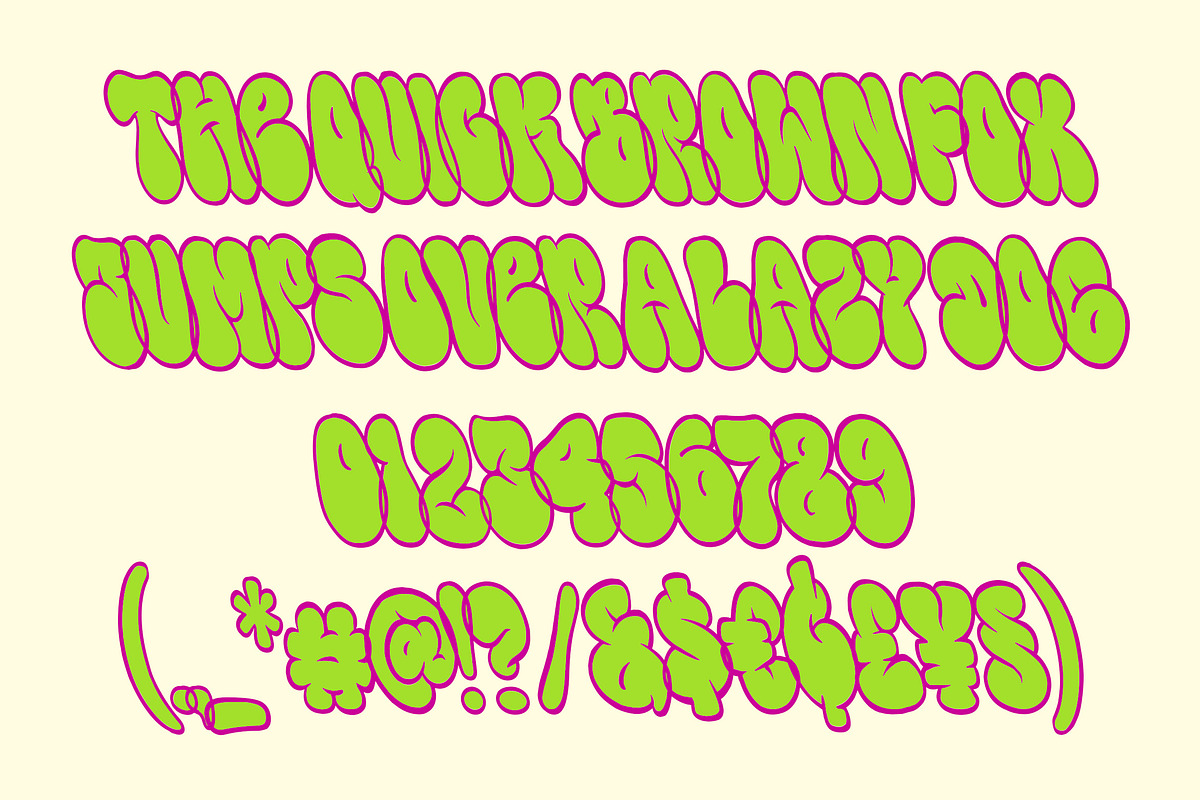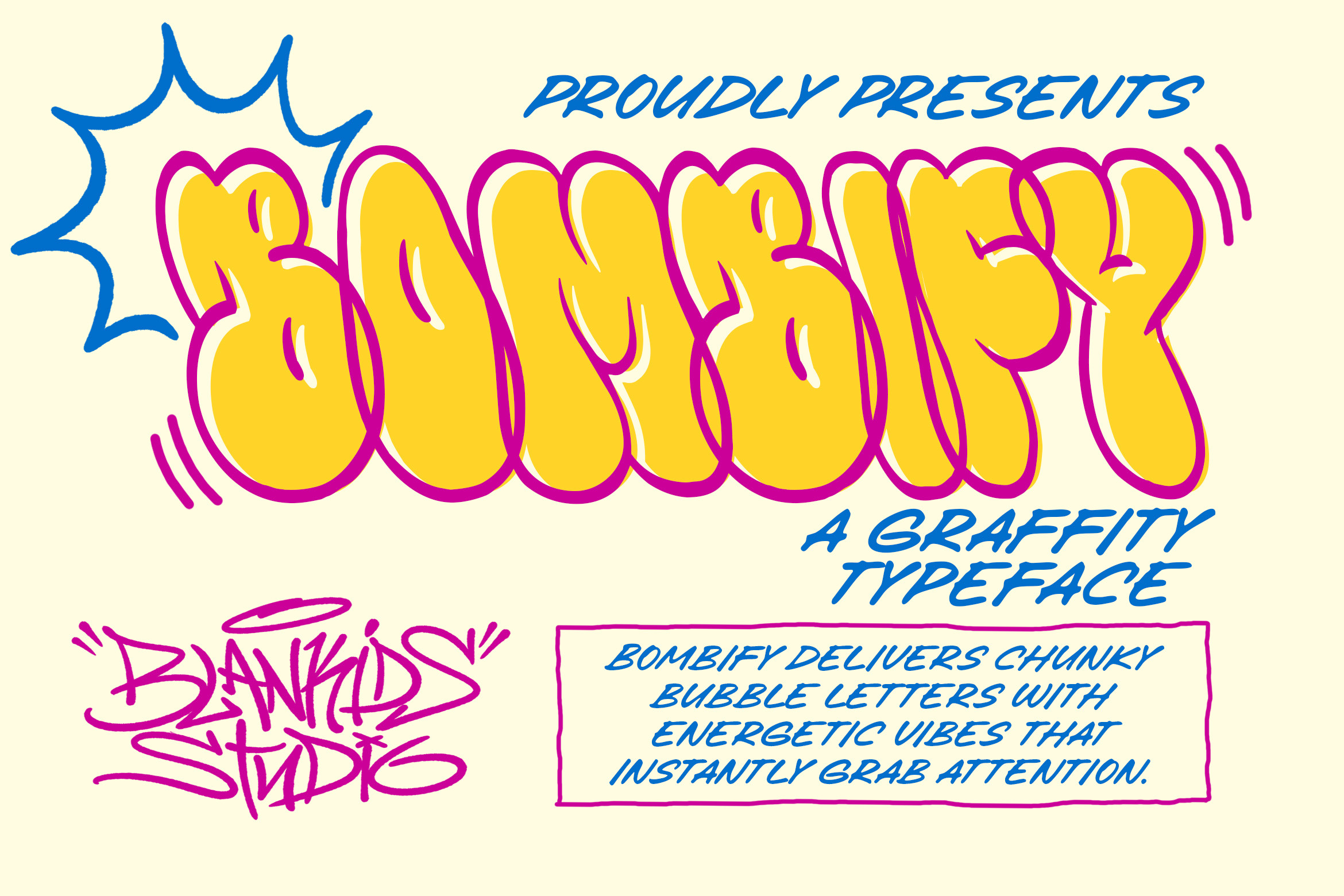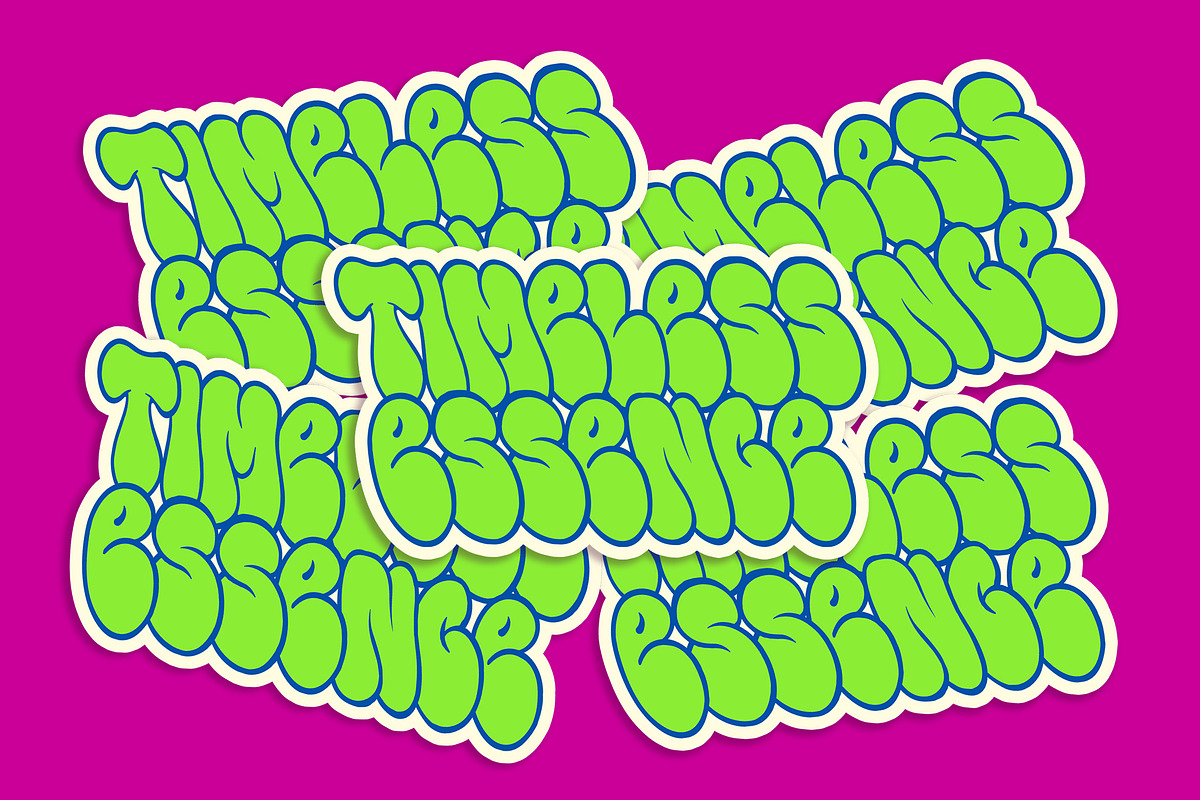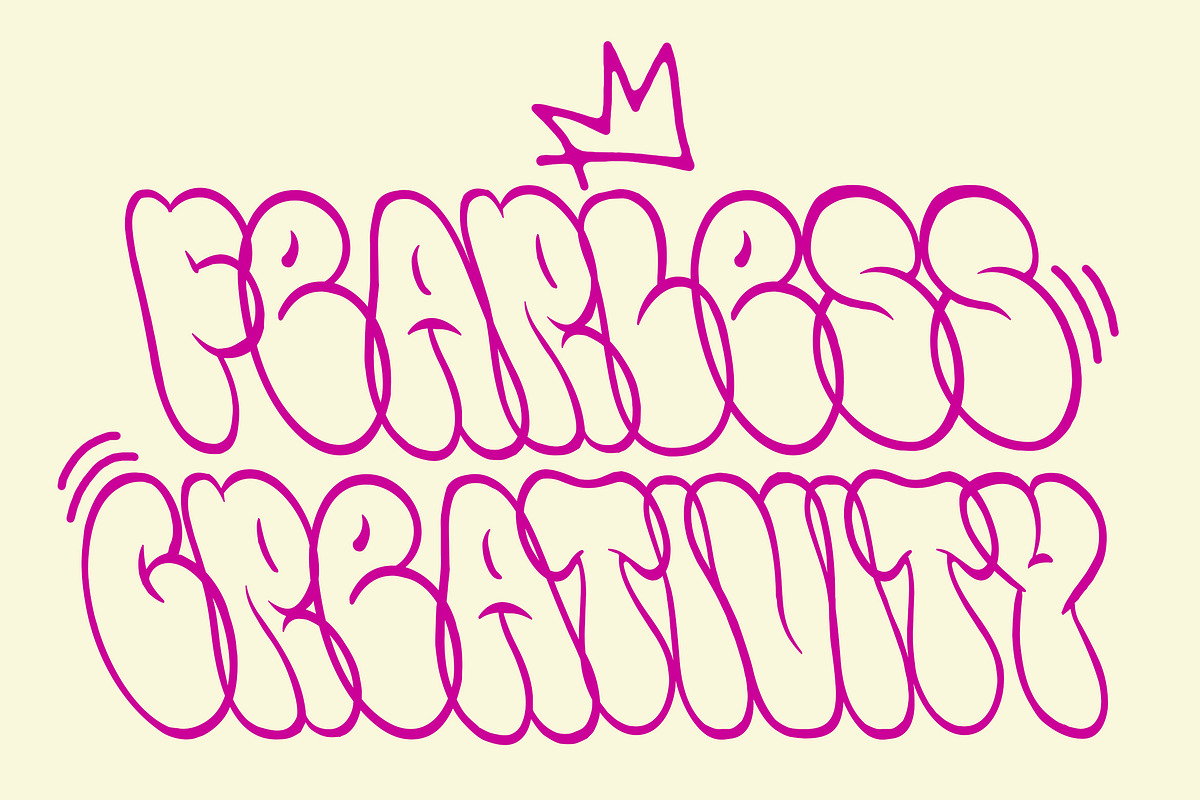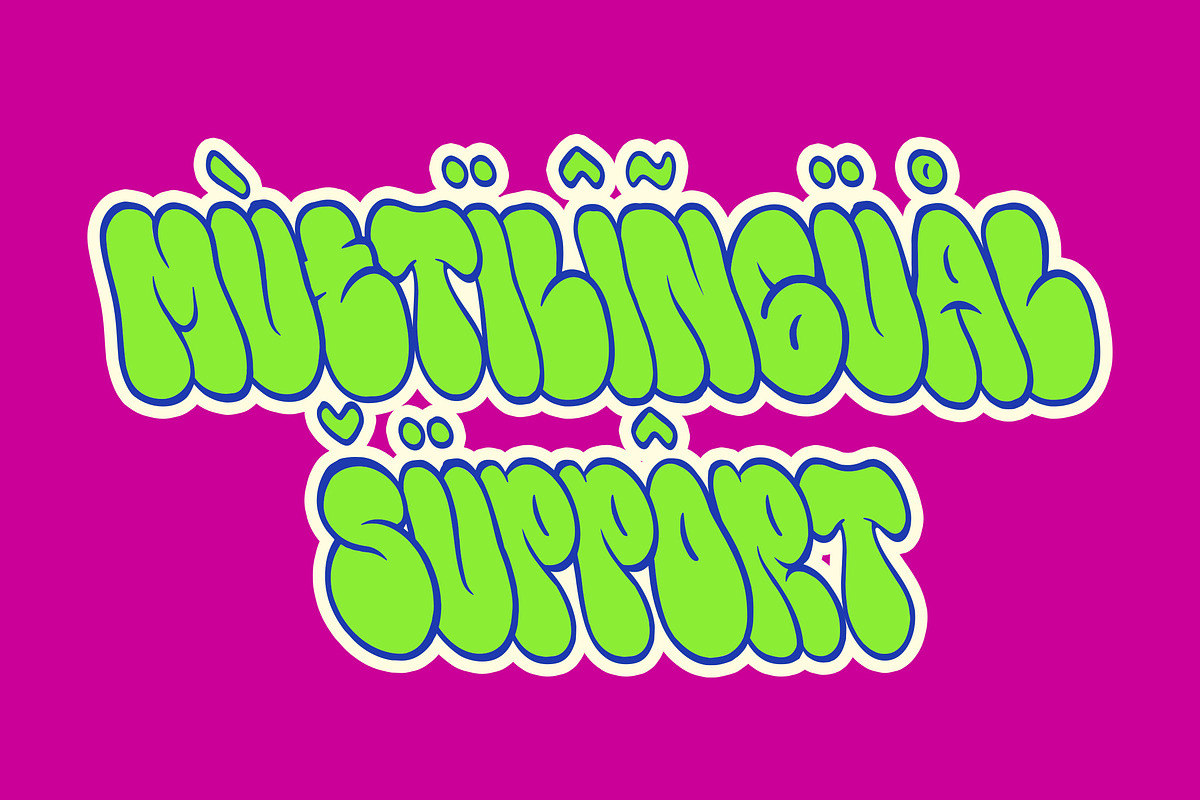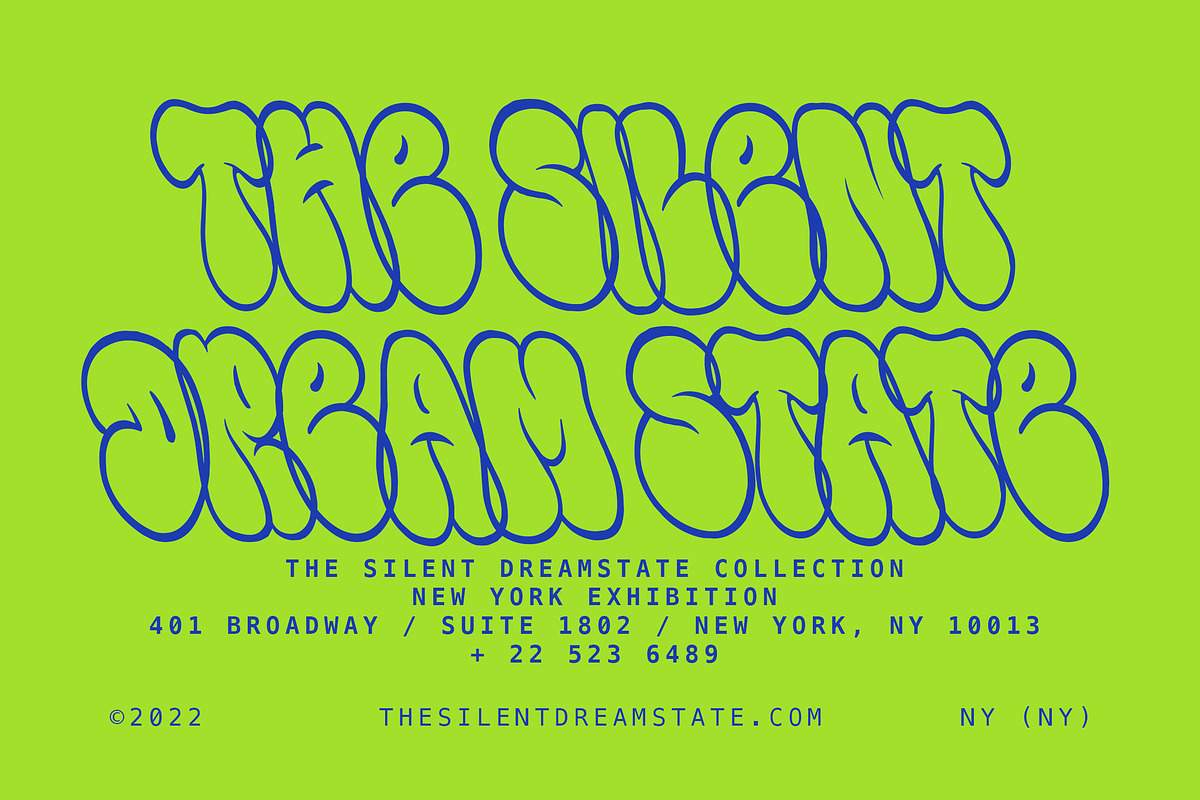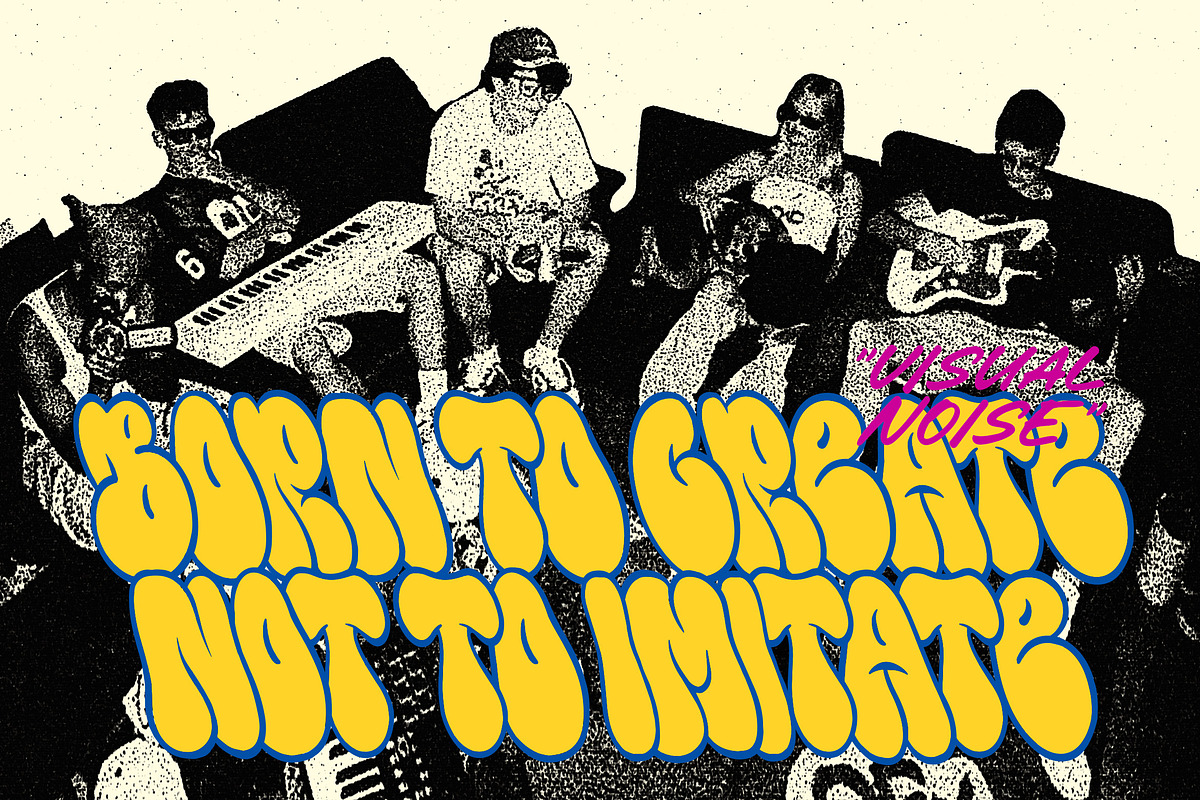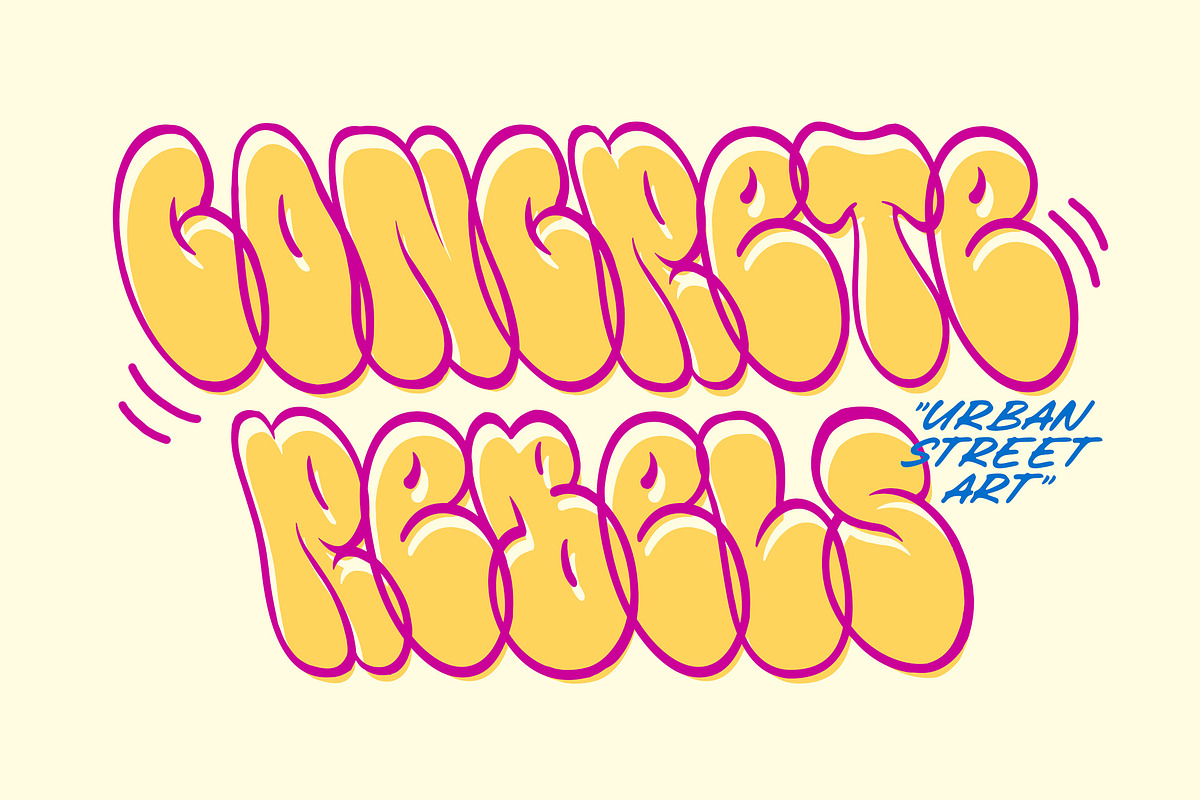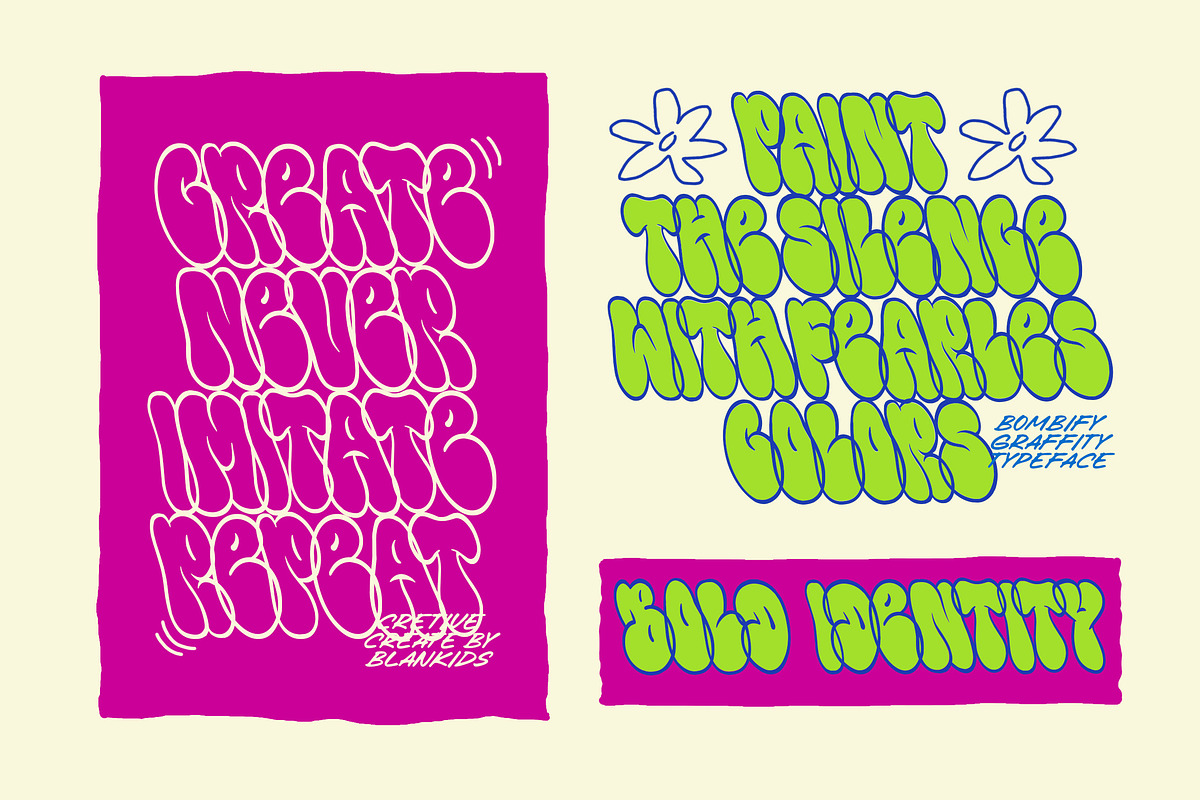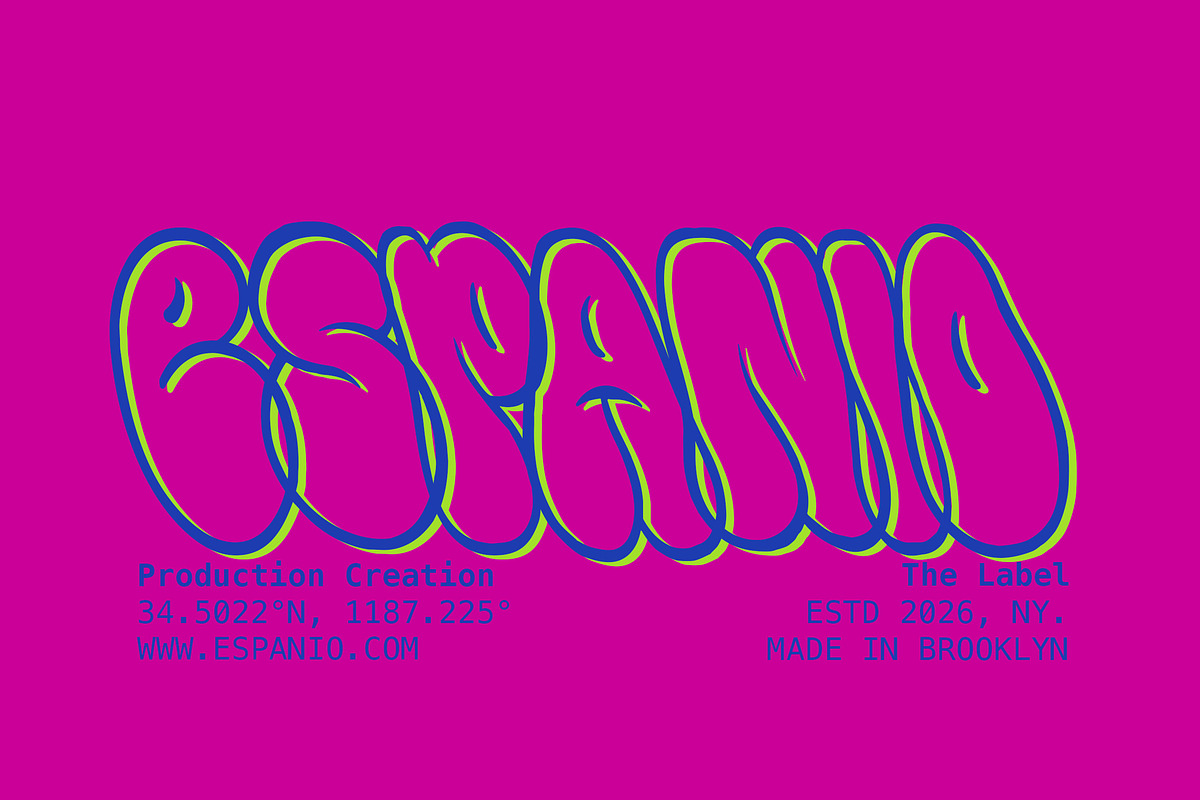
Bombify – Graffiti Bubble Typeface
Bombify is a bold graffiti bubble typeface packed with chunky curves, playful energy, and authentic street-inspired character. Designed to make every word pop, this typeface combines classic bubble lettering with a modern urban twist, making it perfect for projects that demand attention and personality.
Whether you’re creating eye-catching posters, streetwear branding, social media graphics, album covers, YouTube thumbnails, stickers, packaging, or bold logo designs, Bombify delivers a fun and expressive look that instantly stands out. Its rounded shapes and graffiti influence create a friendly yet impactful style that’s easy to read while maintaining an unmistakable urban aesthetic.
Inspired by the vibrant culture of graffiti art and hand-painted street lettering, Bombify is the perfect choice for designers who want to bring youthful, energetic, and creative vibes into their work.
Perfect For :
Graffiti & Street Art
Urban Branding
Apparel & Streetwear
Posters & Flyers
Album Covers
Music Branding
Skate & BMX Designs
Stickers & Decals
YouTube Thumbnails
Gaming Graphics
Kids Products
Creative Merchandise